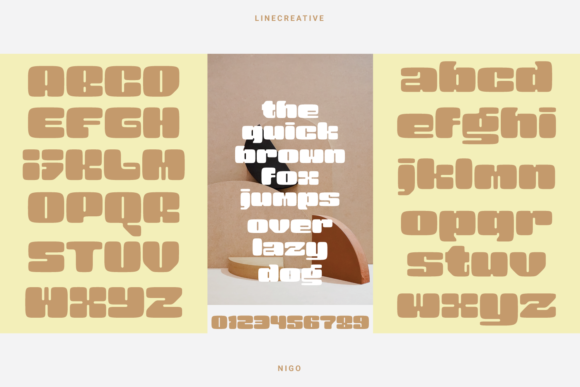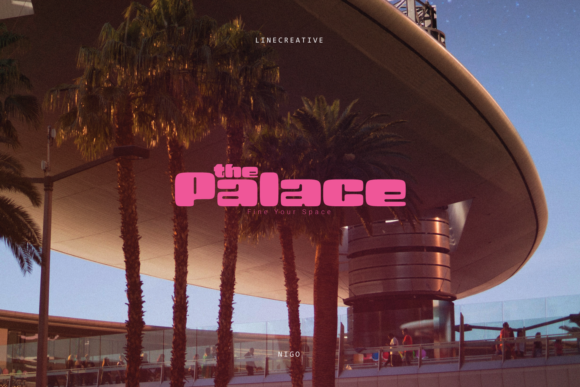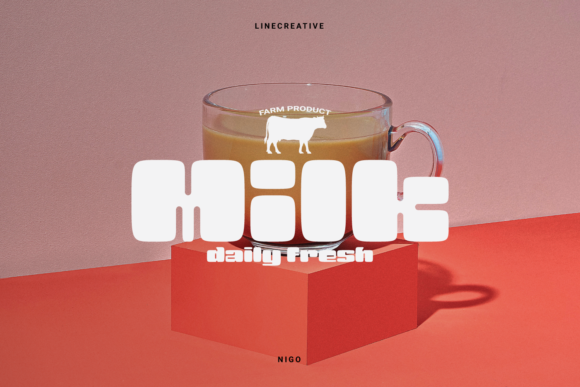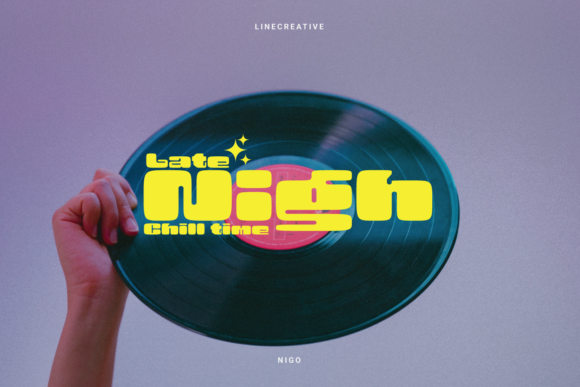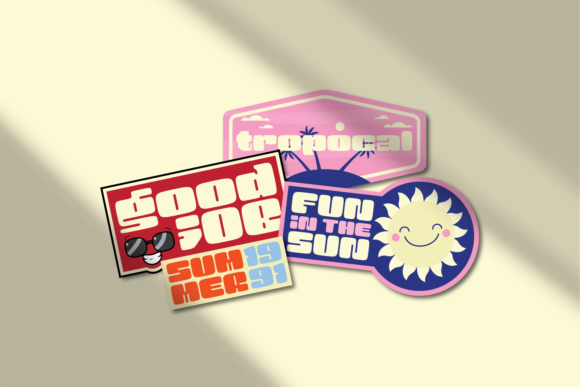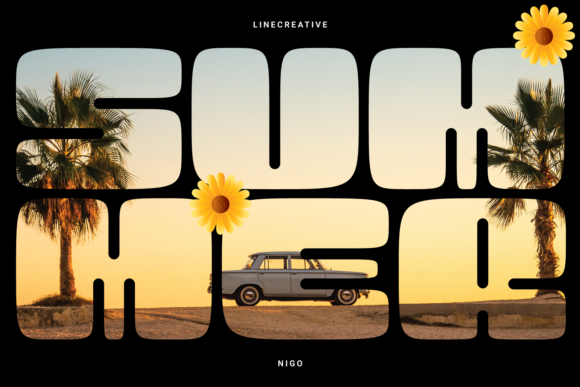
Introduction to Nigo Font
Have you ever stumbled upon a font that perfectly captures the essence of your creative vision? For designers, that ‘aha’ moment is like a breath of fresh air. It’s the moment when everything falls into place, and your project starts to take shape. For many, that moment came when they discovered the Nigo Font.
This stylish display font has been making waves in the design community, and for good reason. With its modern and retro look, the Nigo Font is a versatile design resource that can elevate any project. Whether you’re working on a layout magazine, a quote, or a creative project inspired by the 60s and 70s, this font is sure to bring a touch of sophistication and whimsy.
Nigo Font
- High-quality, professional font suitable for various design projects, including logos, branding materials, and advertisements.
- Designed to be highly versatile, with a unique blend of modern and classic elements that can add a touch of sophistication to any creative project.
- Includes a large character set, covering a wide range of languages and characters, making it an ideal choice for global design projects.
Honest Review: Nigo Font
I recently had the opportunity to work with the Nigo Font, and I must say it’s been a game-changer for my design projects. This font is a part of a comprehensive design resource that offers a wide range of high-quality fonts.
- ✨ Unique and modern design
One of the limitations is that the font is not as extensive as some other design resources. However, this is not a major issue for me, as I find the quality of the font to be more important than the quantity.
Overall, I’m really impressed with the Nigo Font and would highly recommend it to any designer looking for a high-quality, modern font for their creative project.
Nigo Font
Tips for Getting the Most Out of Nigo Font
To get the most out of Nigo Font, experiment with different font sizes, colors, and styles to find the perfect combination for your project. You can also use the font in combination with other design elements to create a unique and eye-catching design.
Nigo Font is commonly used in creative projects such as graphic design, web design, and digital art. It’s also a great resource for social media graphics, flyers, and brochures.